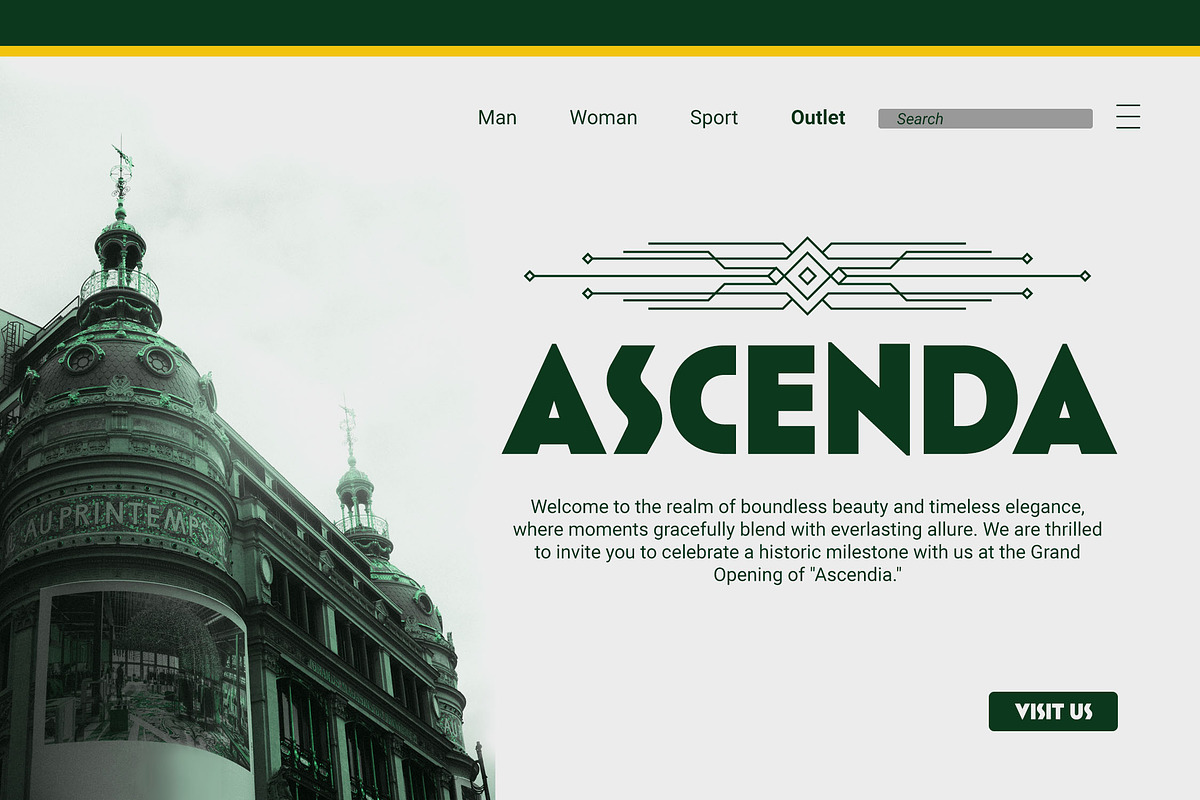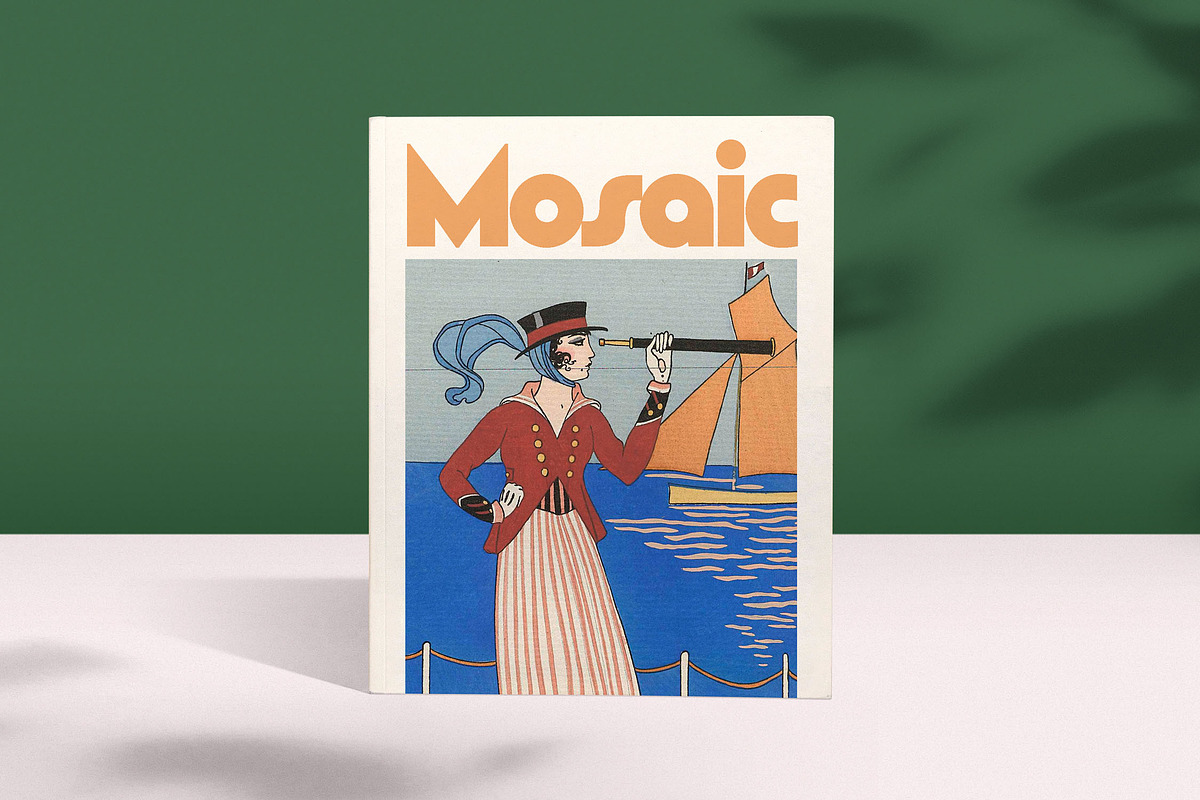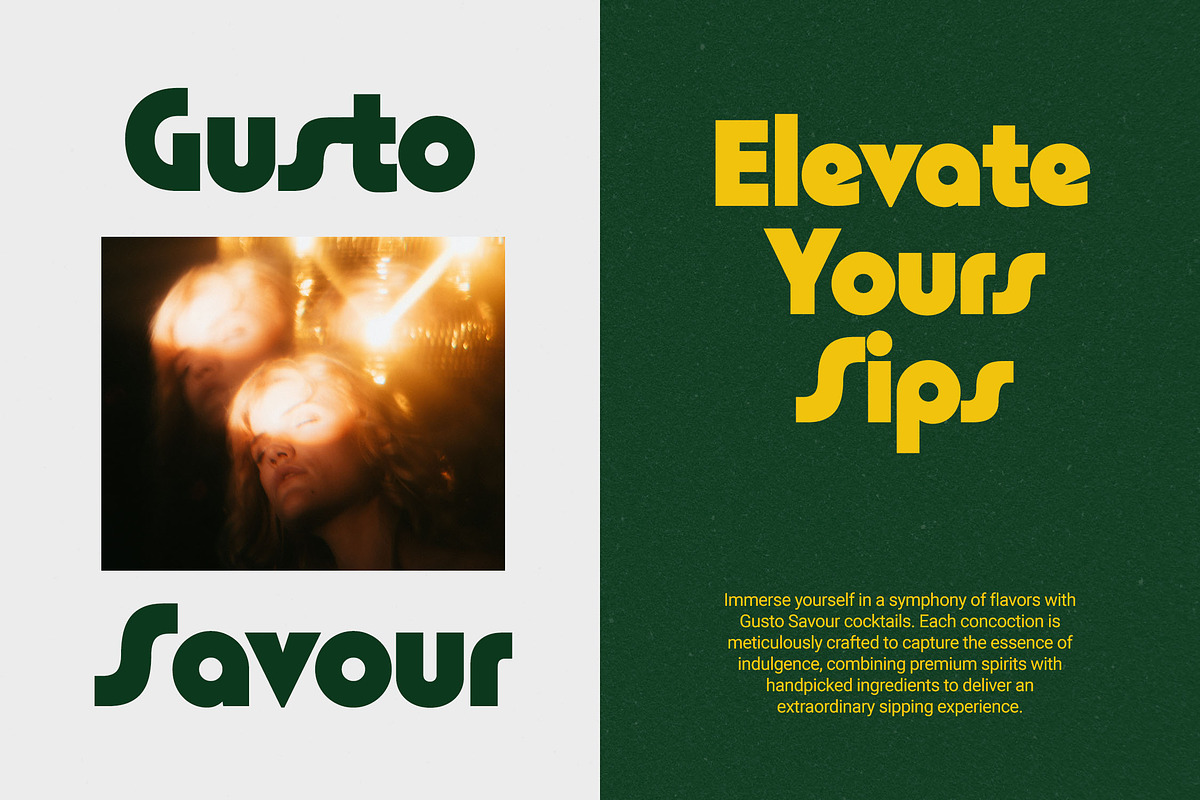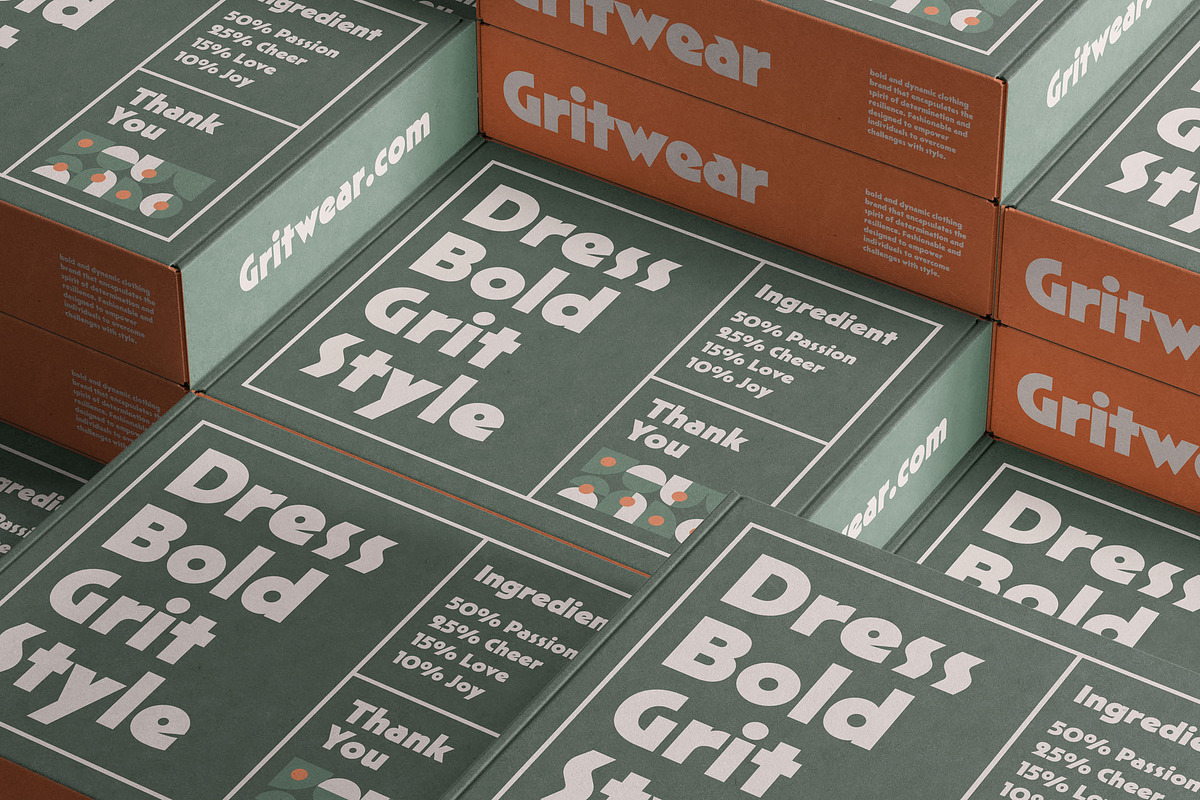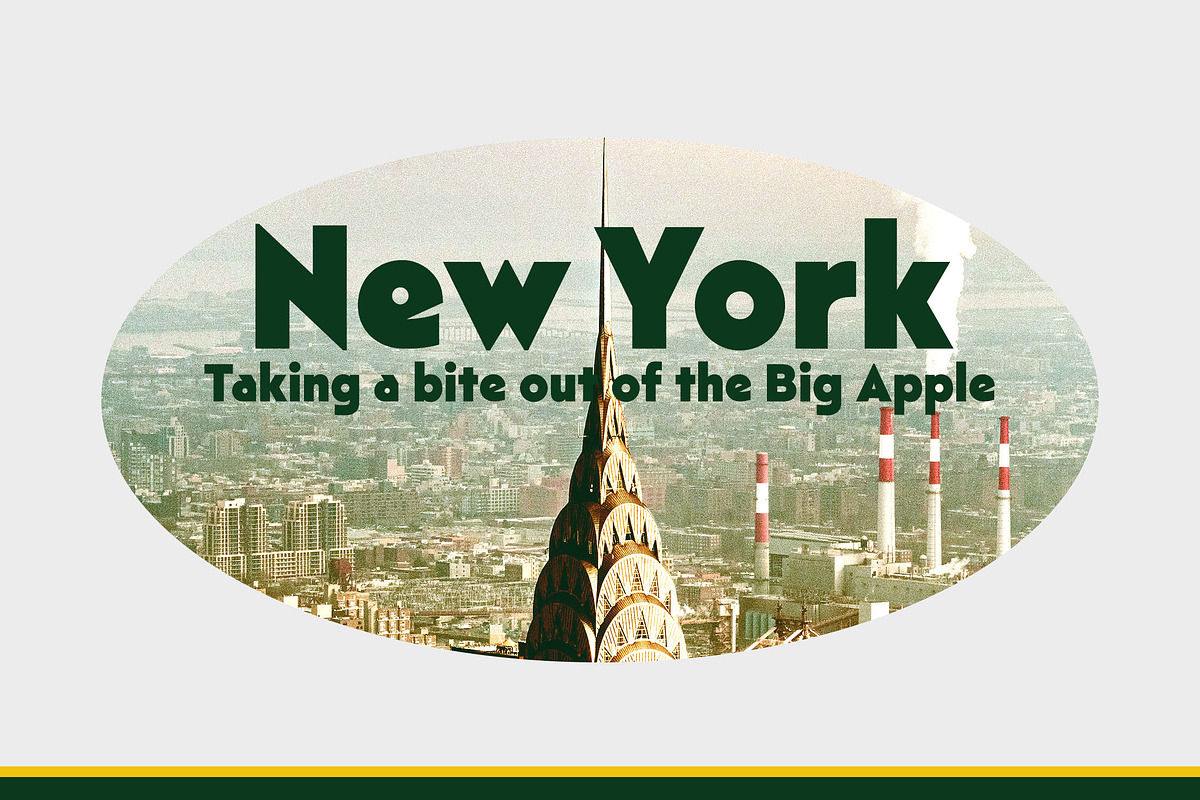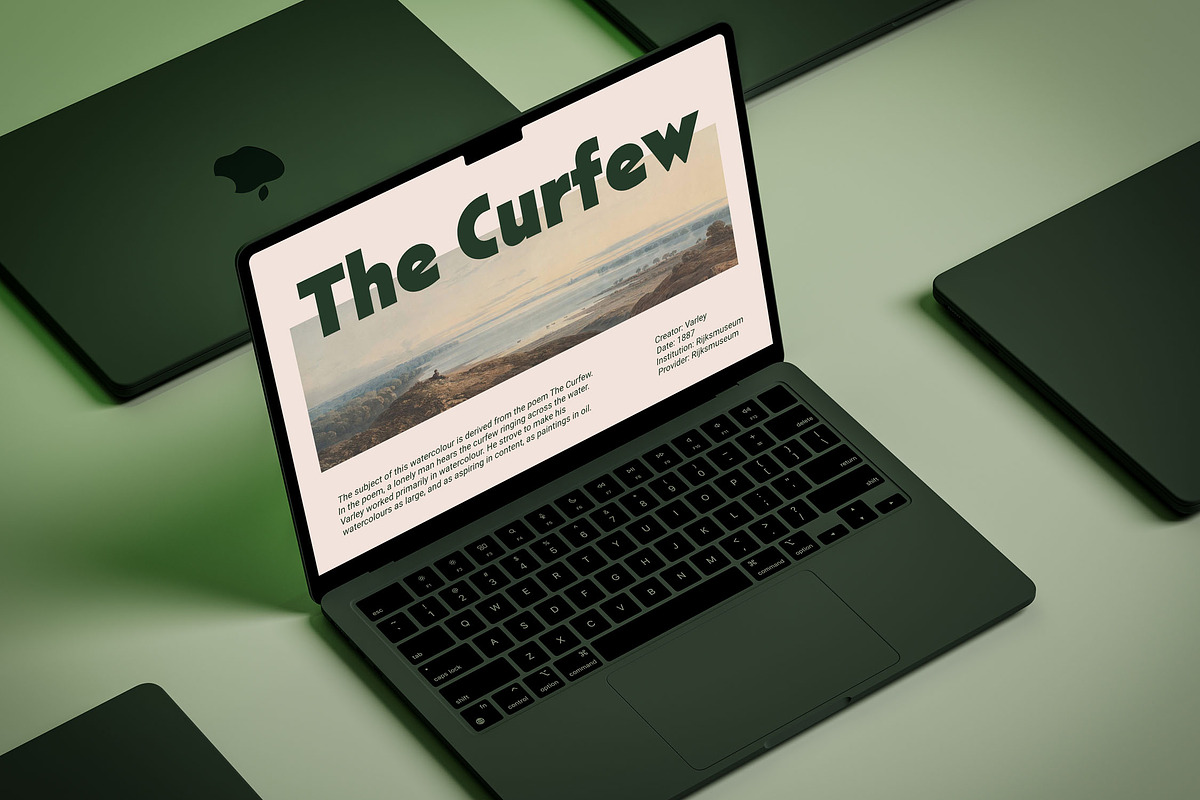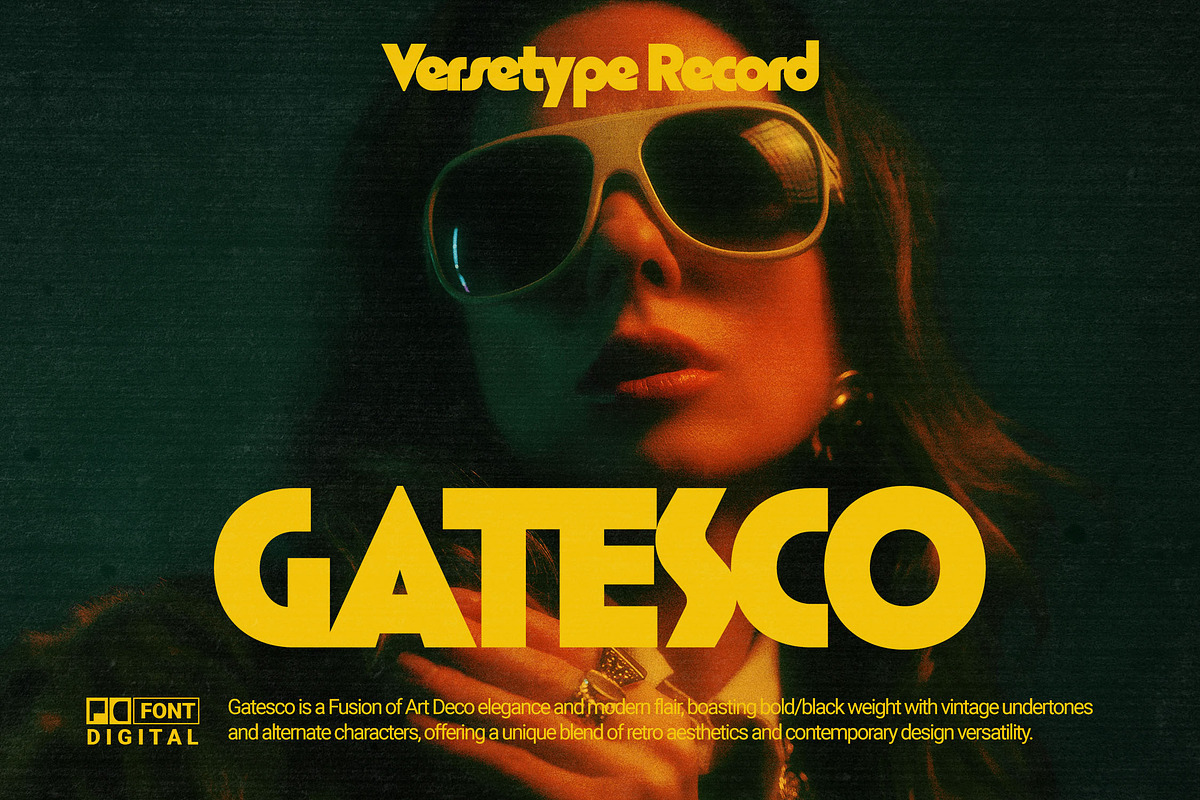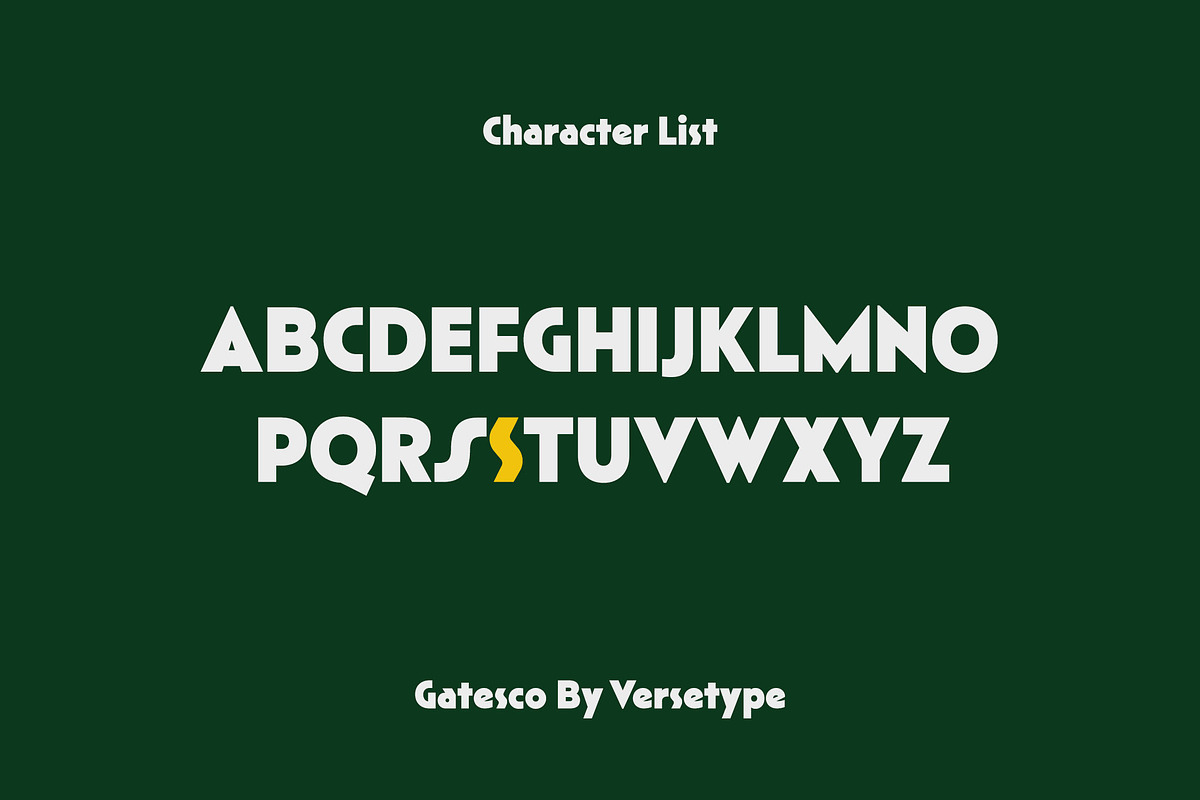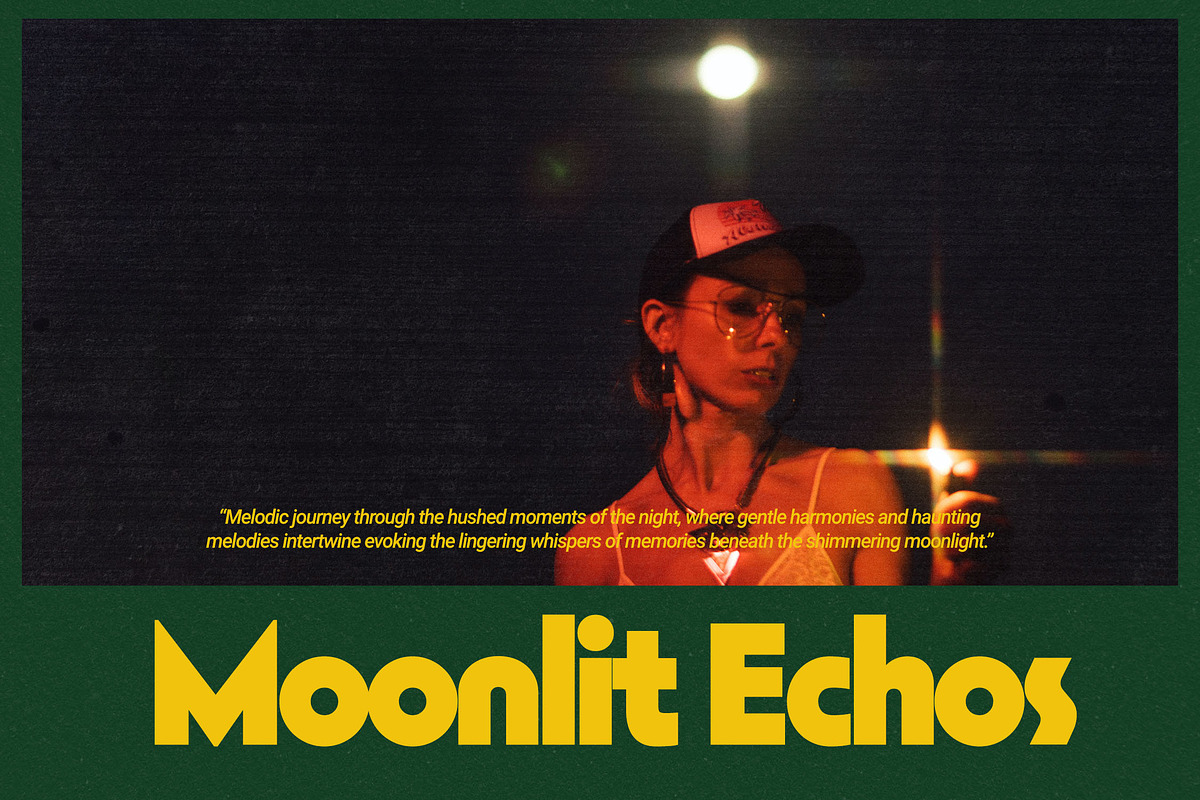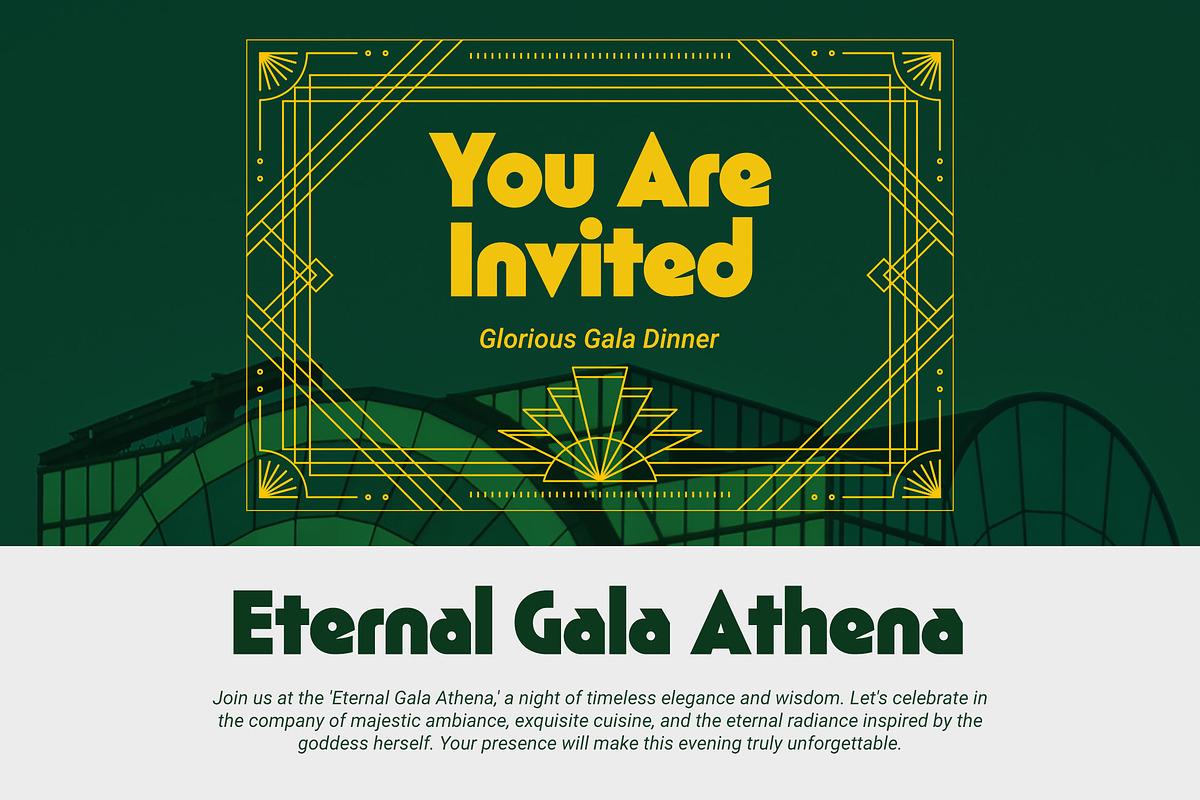
Gatesco
Gatesco: A Fusion of Art Deco and Modern Elegance
Gatesco is a distinctive font that seamlessly marries the timeless allure of Art Deco with a contemporary twist. This bold and striking typeface pays homage to the opulence of the past while embracing the sleek and minimalistic aesthetic of modern design. With its rich history and cutting-edge vibe, Gatesco captures the essence of two eras in a single, captivating font.
Gatesco stands as a testament to the creative possibilities that emerge when tradition meets innovation. This font captures the essence of Art Deco's golden age while effortlessly integrating the clean lines and functional sensibilities of modern design. With its commanding presence and adaptable nature, Gatesco is a font that empowers designers to evoke a sense of nostalgia while embracing the contemporary design landscape.